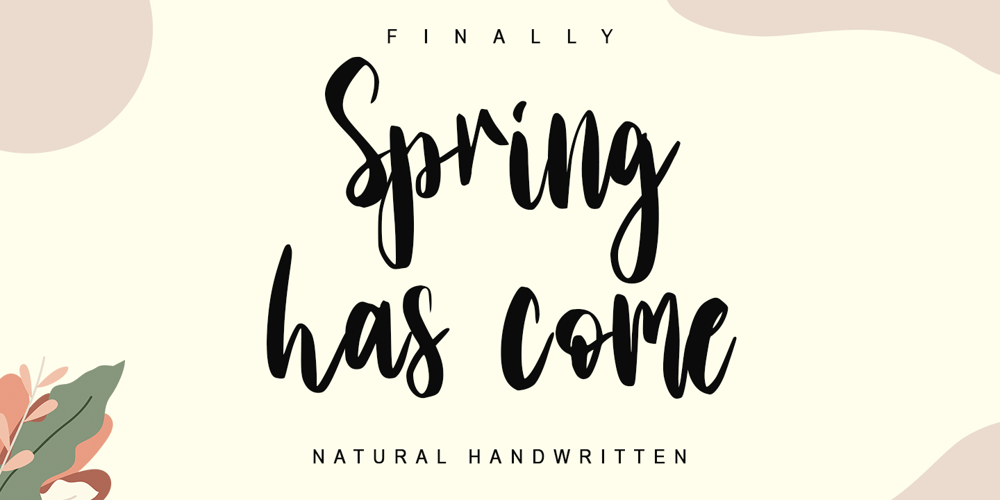
Spring Has Come Font Family was designed by Stefani Tri Rosa Setiati Christiana and published by Stefani Letter. Spring Has Come contains 2 styles and family package options. Spring has come is a stylish modern handwritten script. It has an unique, striking look which can be used to make any design stand out. Incredibly versatile, this font fits a wide pool of designs, elevating them to the highest levels. Add this font to your favorite creative ideas and notice how it makes them come alive! This font is PUA encoded which means you can access all of the glyphs.